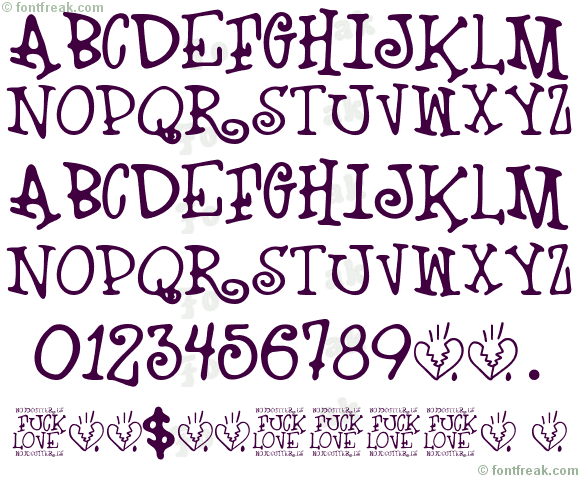
Fuck Love
The "Fuck Love" font by woodcutter Manero is a distinctive display typeface that captures attention with its playful yet edgy character. This font features a unique handwritten style, characterized by its irregular strokes and casual flair, making it ideal for projects that require a touch of personality. The stroke weight varies throughout, giving it a lively and dynamic feel. The contrast within the letters adds depth, while the generous spacing ensures readability, allowing it to stand out in various applications.
This font is particularly well-suited for a variety of creative use cases. Its bold and expressive nature makes it an excellent choice for wedding invitations that aim for a modern twist. Similarly, it can be effectively utilized in movie posters, where capturing the essence of the film's theme is crucial. Restaurant menus can benefit from its engaging style, attracting diners' attention while adding a fun element to the dining experience. Additionally, content creators looking to spice up their social media graphics or blogs will find the "Fuck Love" font free download to be a valuable asset for enhancing their visual storytelling.
Targeting graphic designers, small business owners, and content creators alike, this typeface serves as a versatile tool for anyone looking to convey emotion and creativity in their work. Whether you want to express love, rebellion, or simply add a distinct flair to your designs, "Fuck Love" delivers a strong message without saying a word.
What sets this font apart is its ability to evoke strong emotions while maintaining a casual charm. It's not just a typeface; it's a statement that resonates with audiences, making it a memorable choice for any design project. Embrace the unique character of the "Fuck Love" font and elevate your creative endeavors.